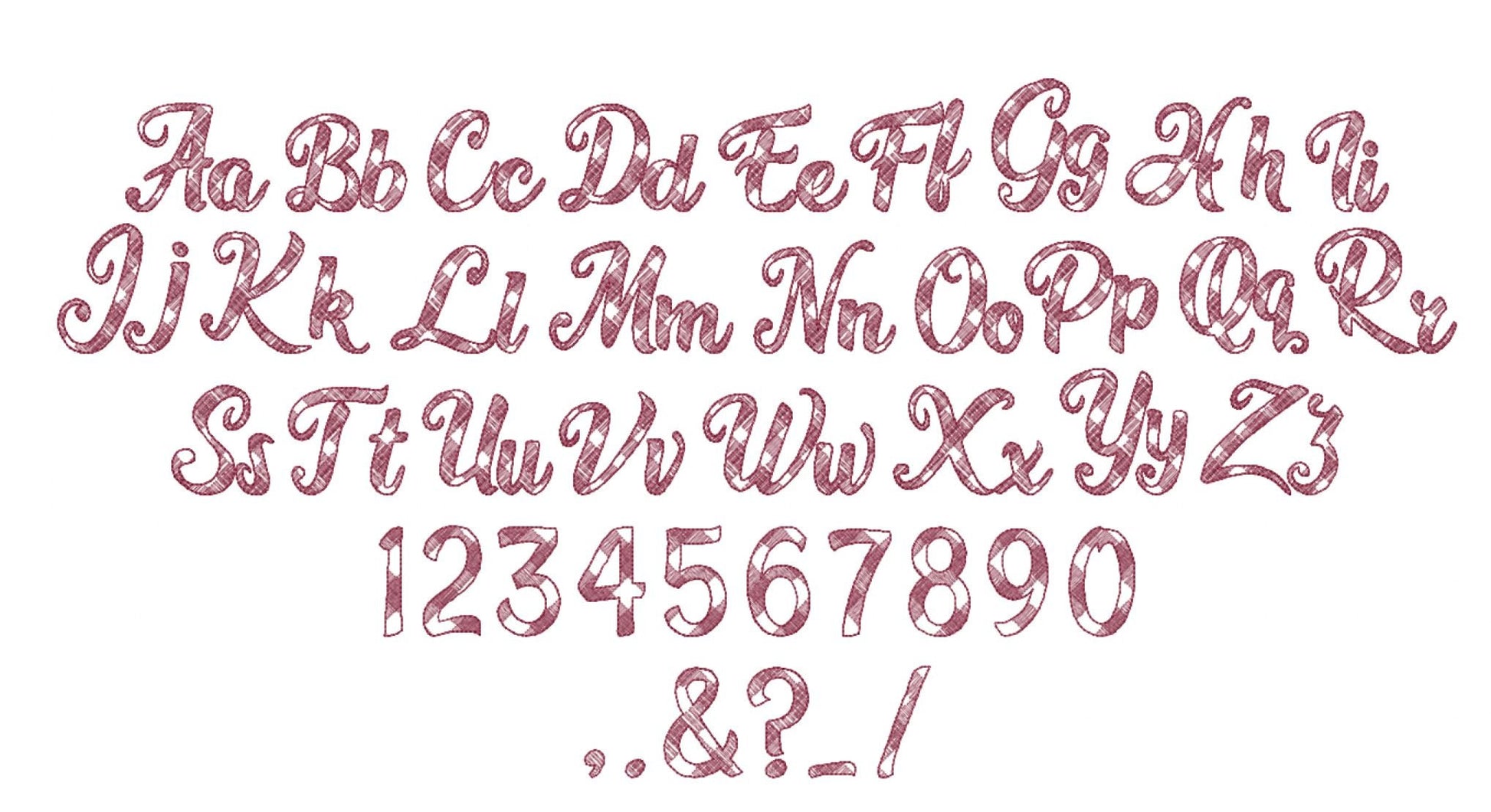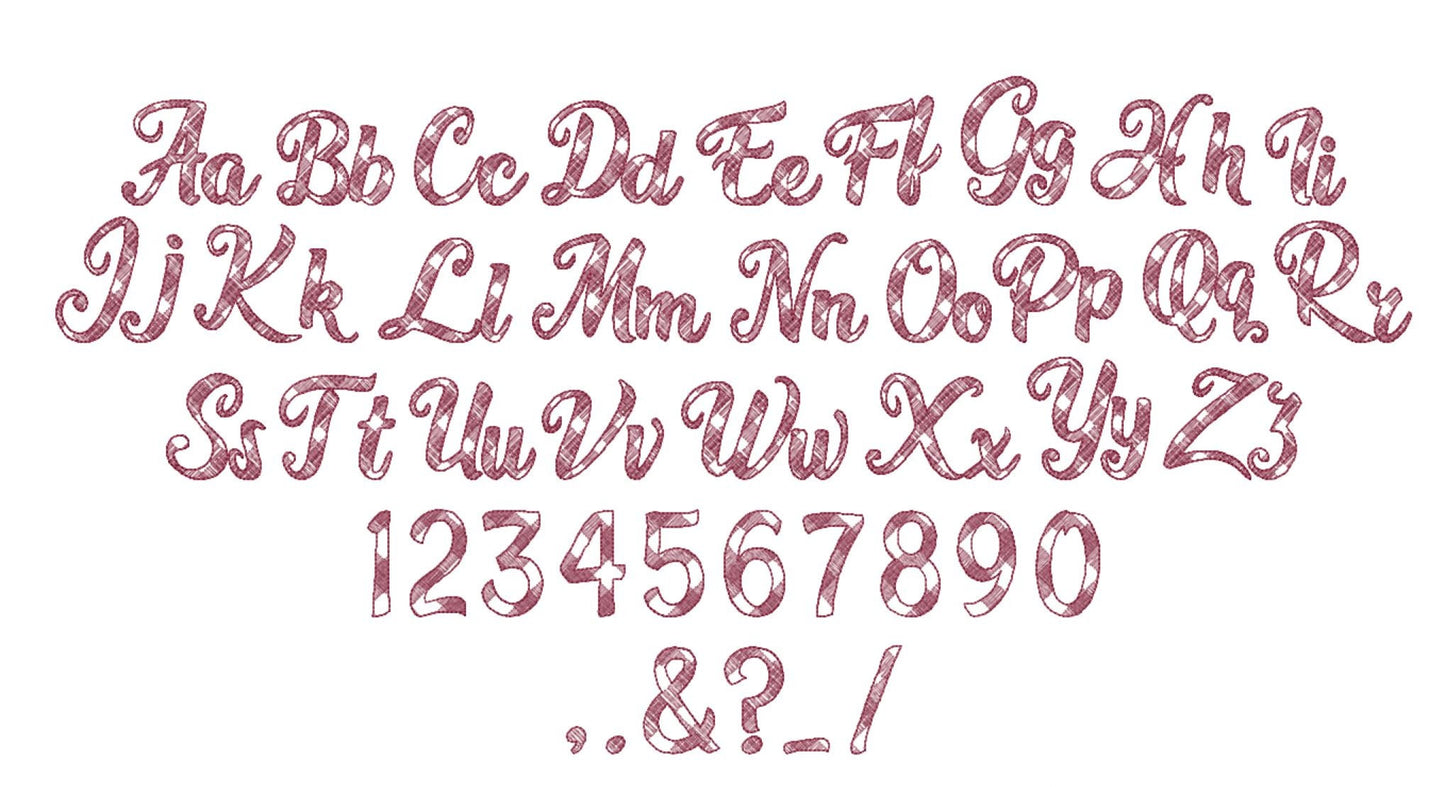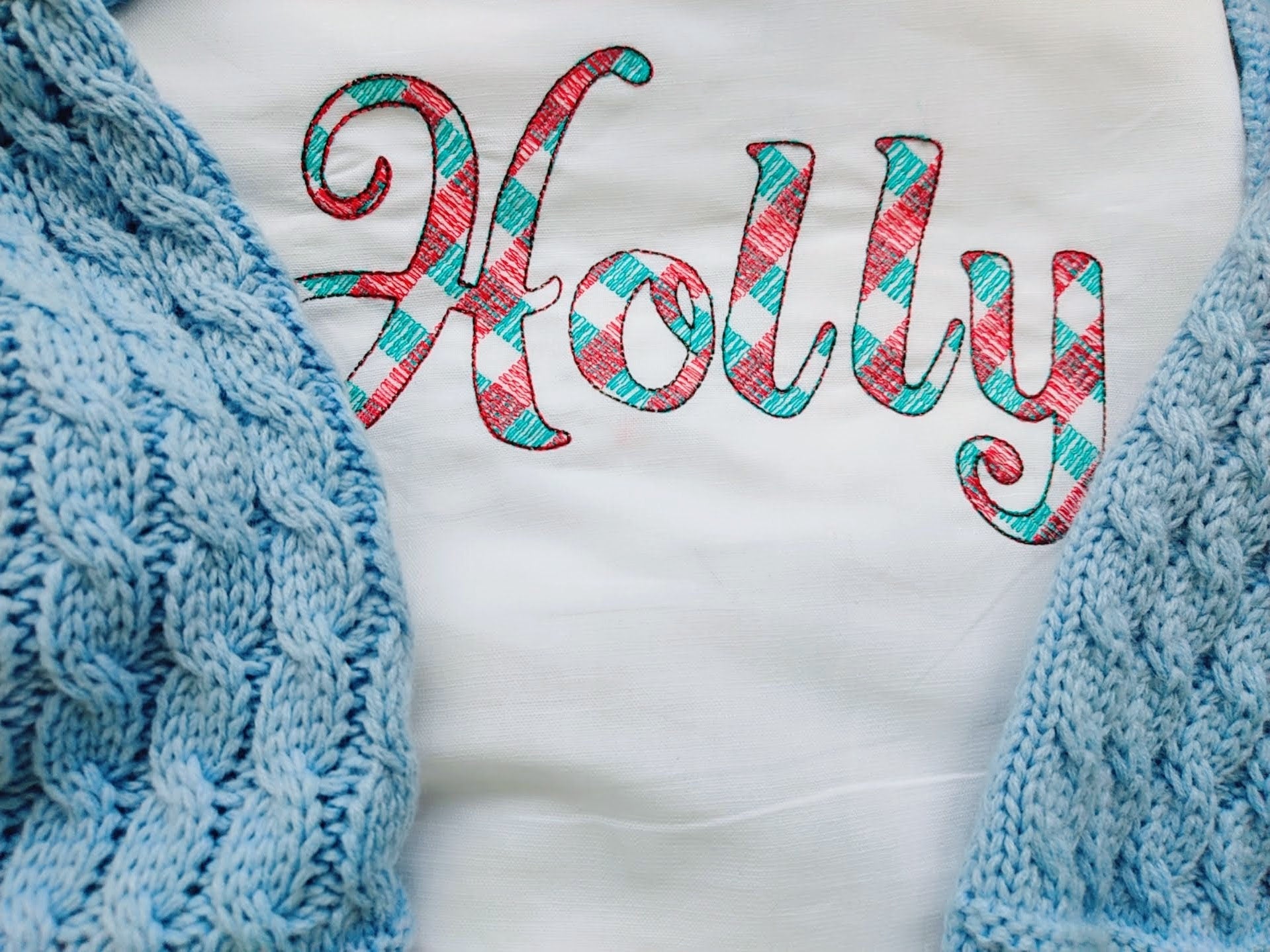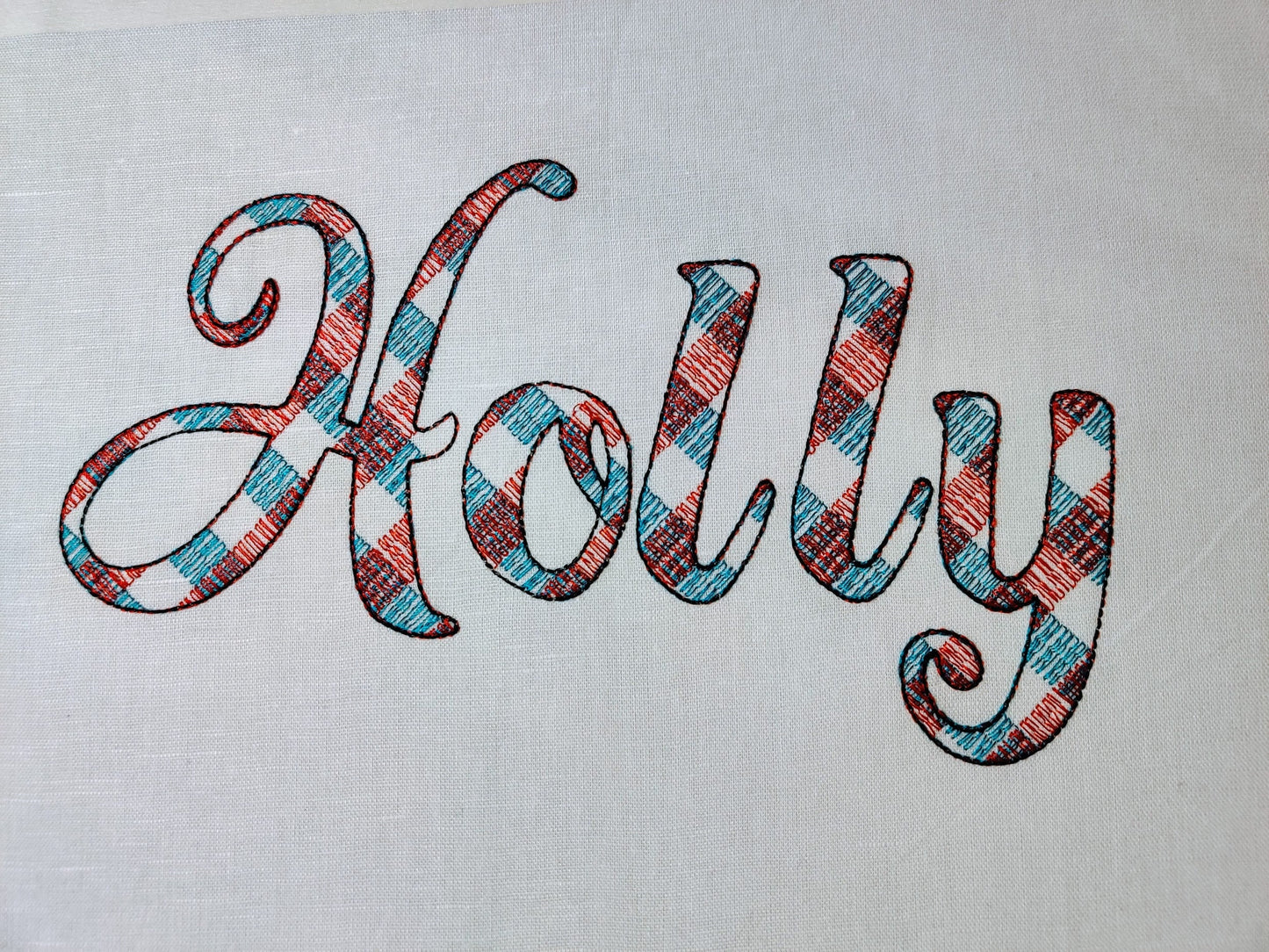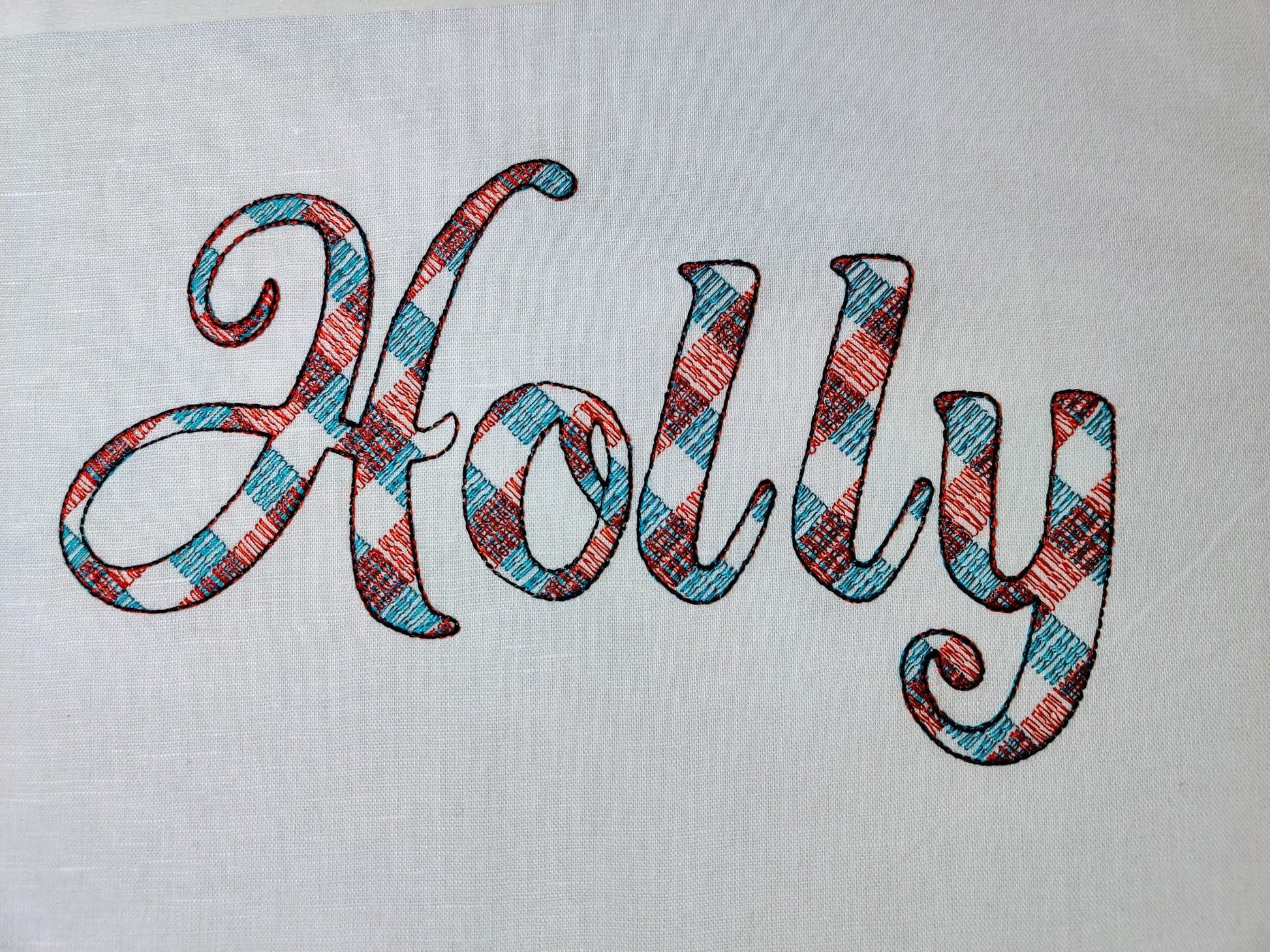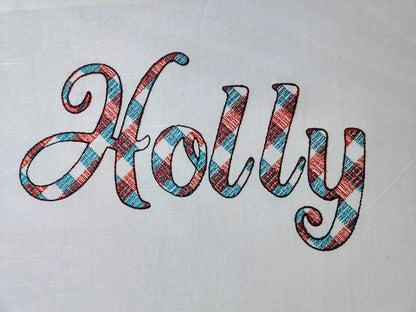
Buffalo Plaid Patterned Font Holly
Or click to open the linkA buffalo plaid font with a light sketch outline that looks like lace, for cozy names on fall and Christmas projects.
A quick stitch: the gingham lines are part of the embroidery and the fabric shows through. Uppercase and lowercase letters, numbers and punctuation in four sizes: 2, 2.5, 3 and 3.5 inches.
- Buffalo plaid sketch font
- Uppercase, lowercase, numbers 0-9, punctuation
- 4 sizes, 2 to 3.5 in